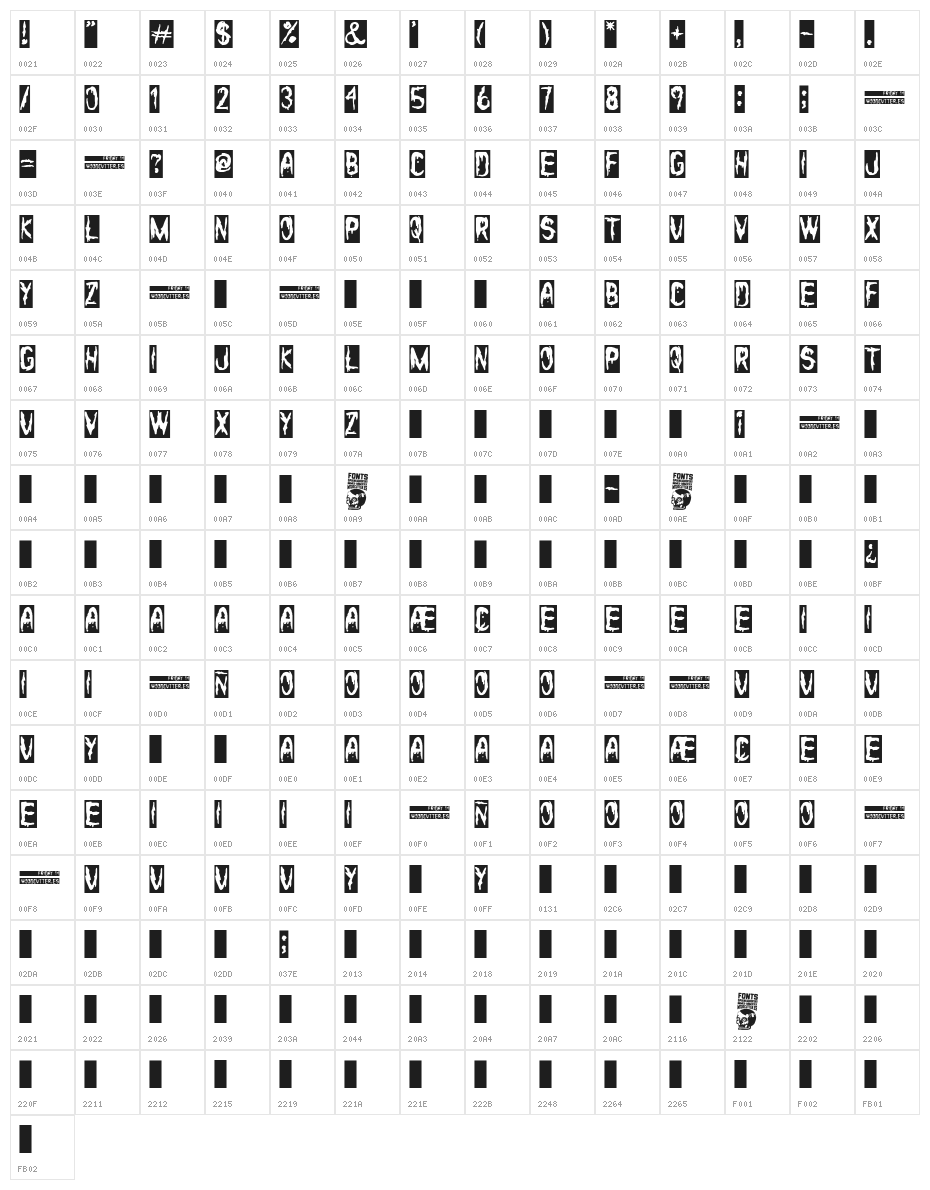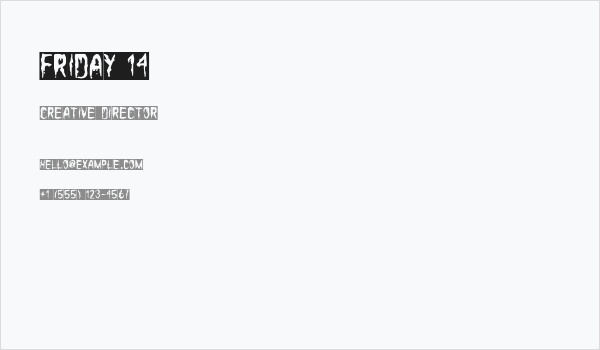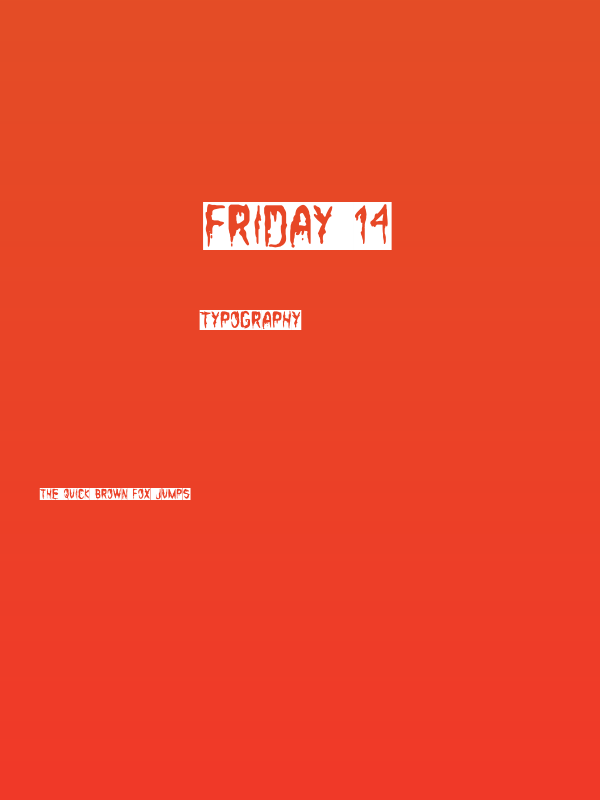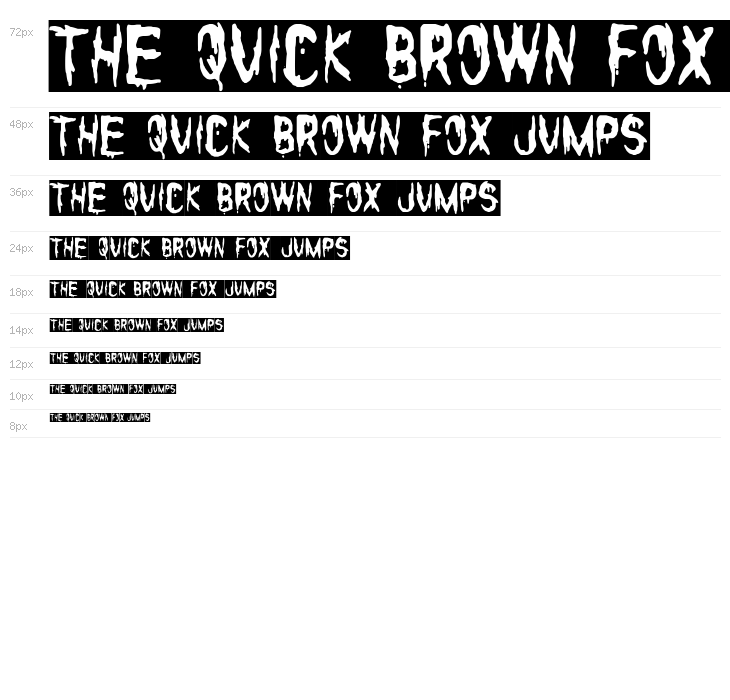
Friday 14 Font
Friday 14 Description
This font features a dripping, eerie style reminiscent of horror themes, making it perfect for Halloween or spooky projects. The characters have an irregular, liquid-like appearance, with each letter and number appearing as if it's melting or dripping. This creates a dynamic and unsettling visual effect, ideal for capturing attention. The uppercase and lowercase letters maintain this consistent style, with the special characters also reflecting the same dripping motif. The font's unique design makes it stand out, providing a distinct and memorable look.
| Use Case | Headlines, Posters, Event Flyers |
| Proposed Projects | Ideal for Halloween invitations, horror movie posters, themed party decorations, and spooky event flyers. |